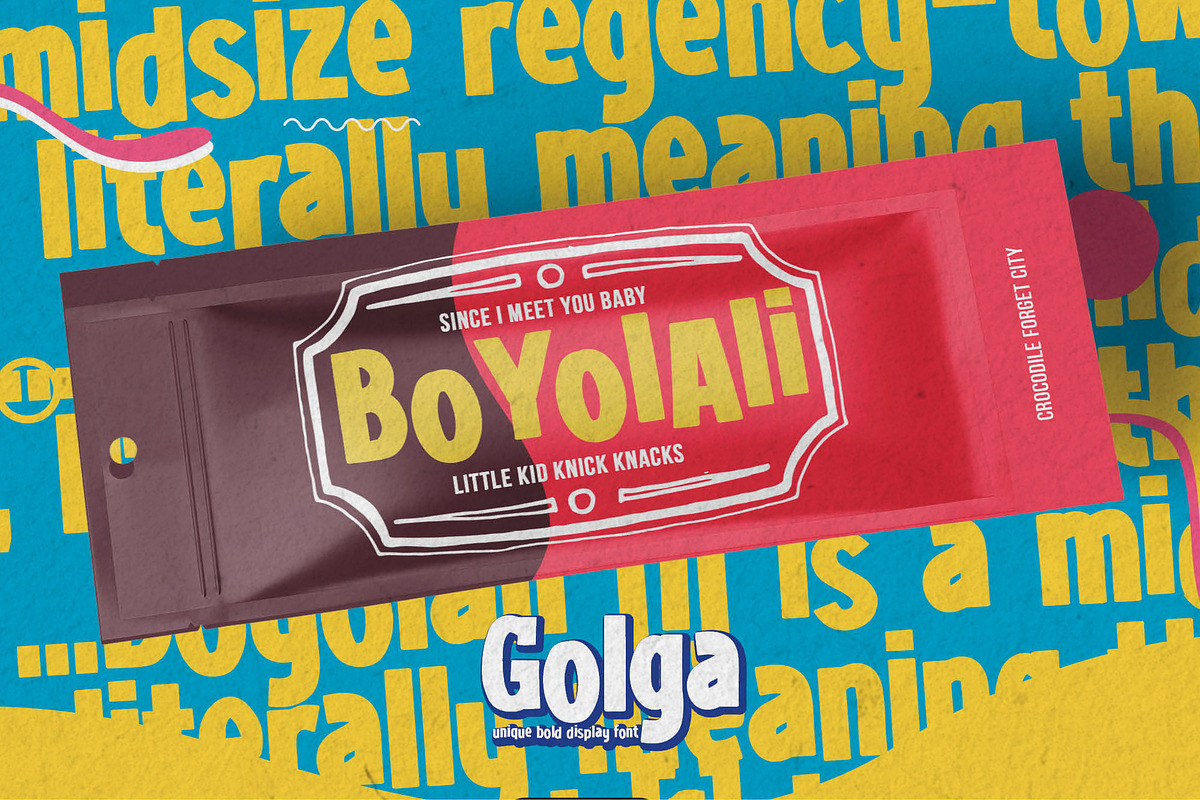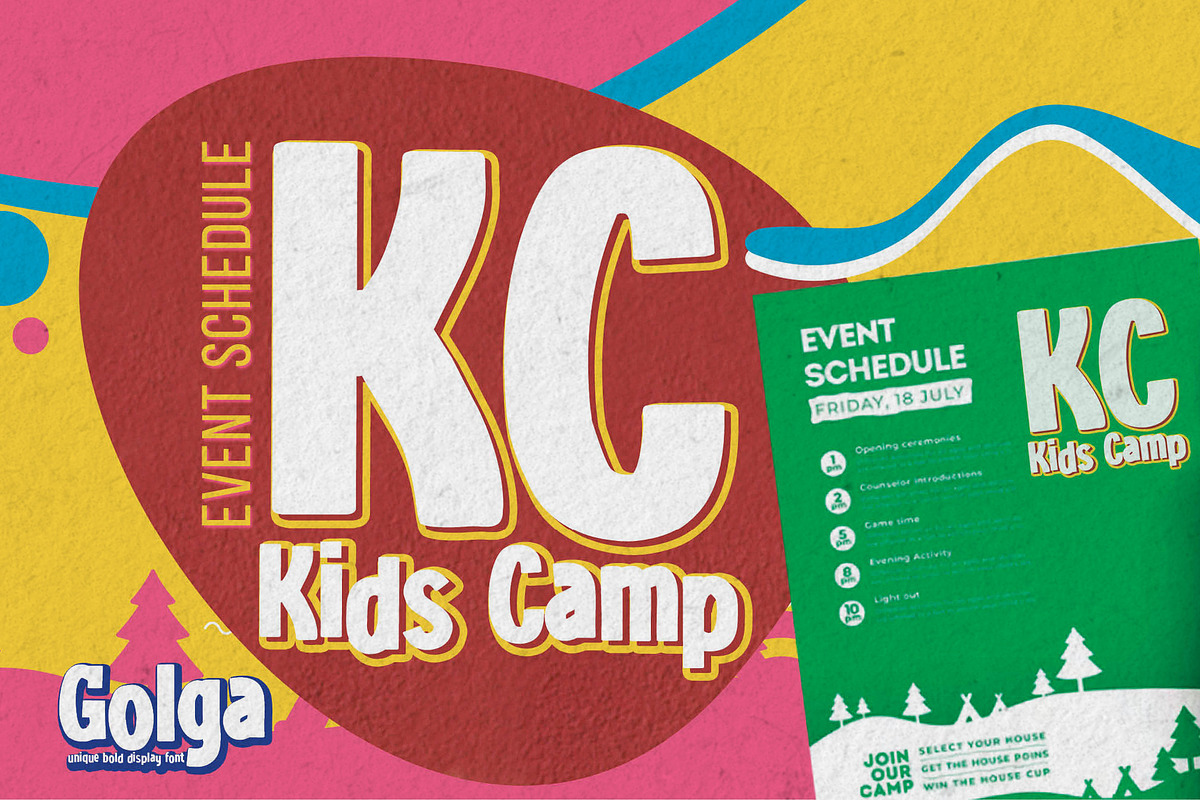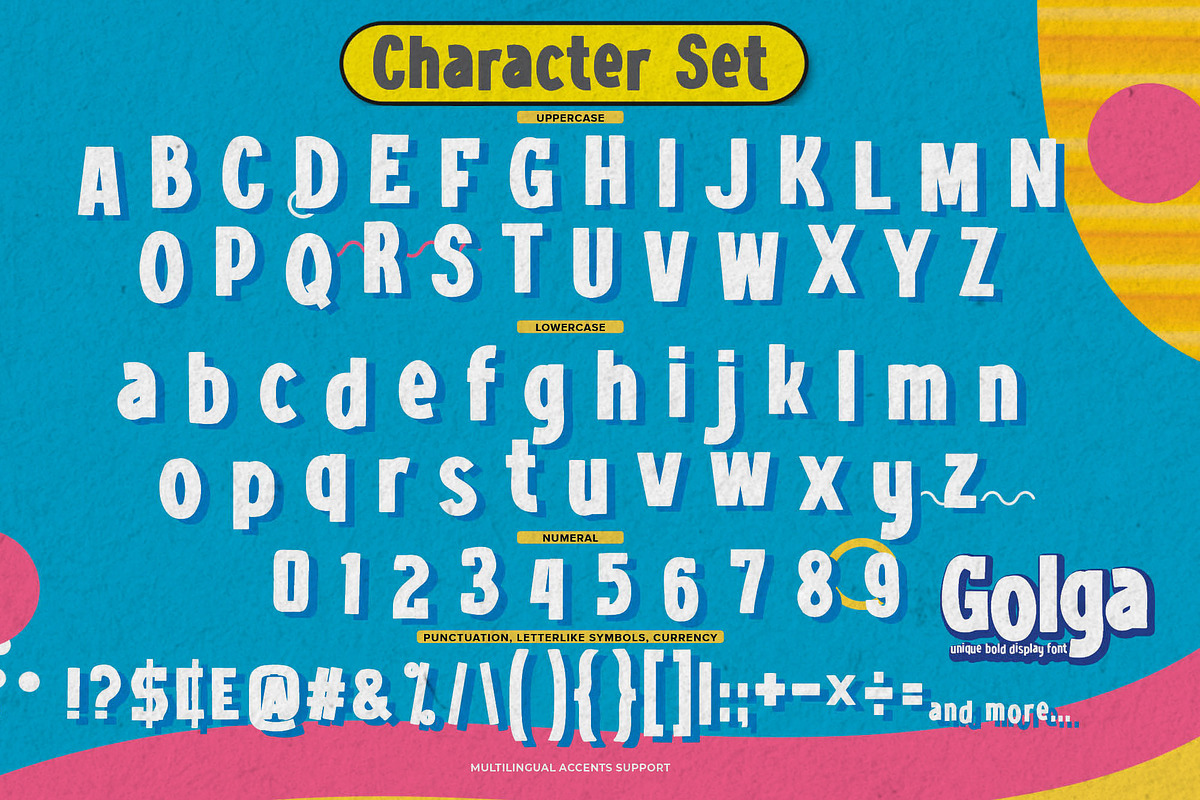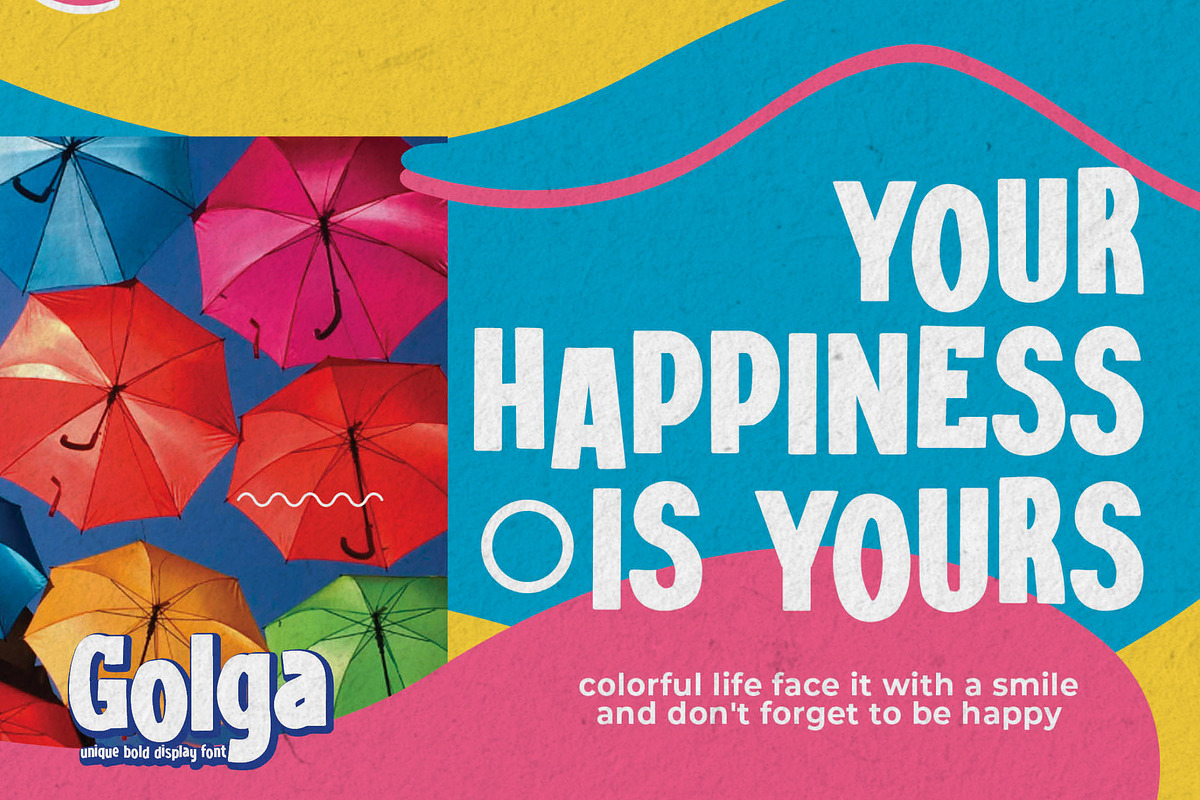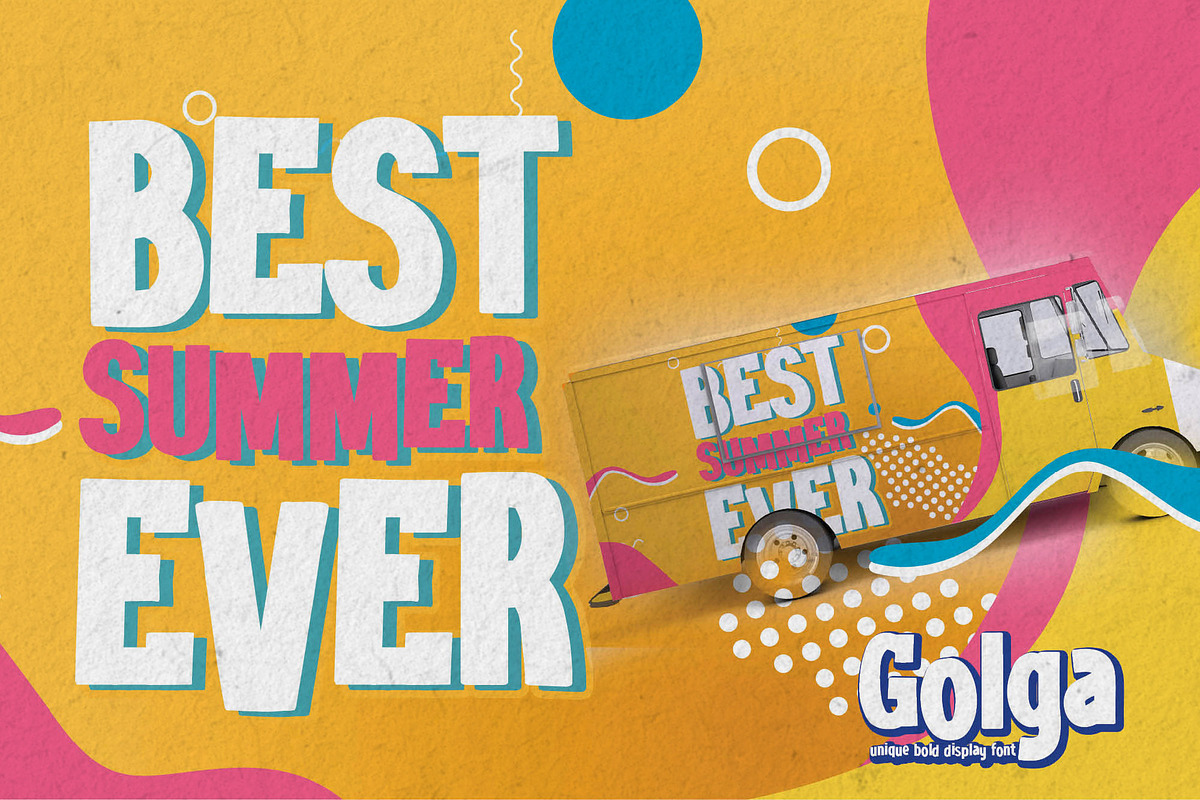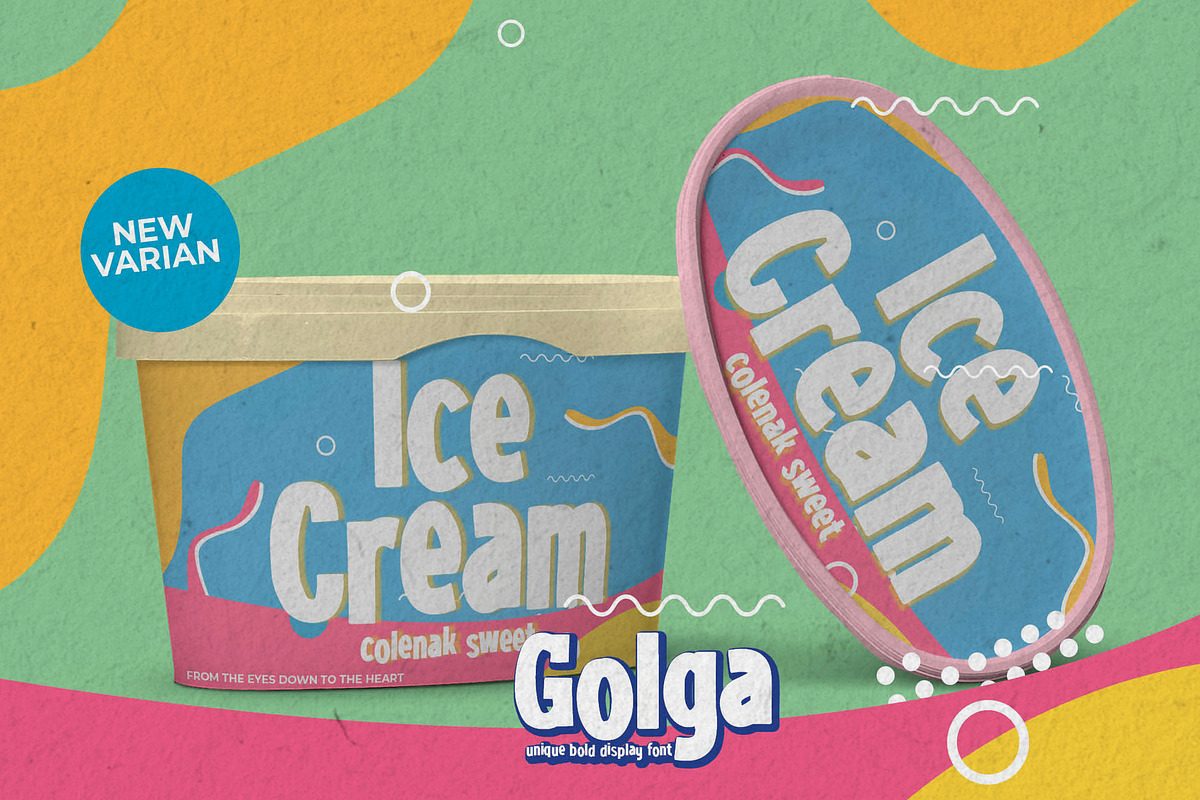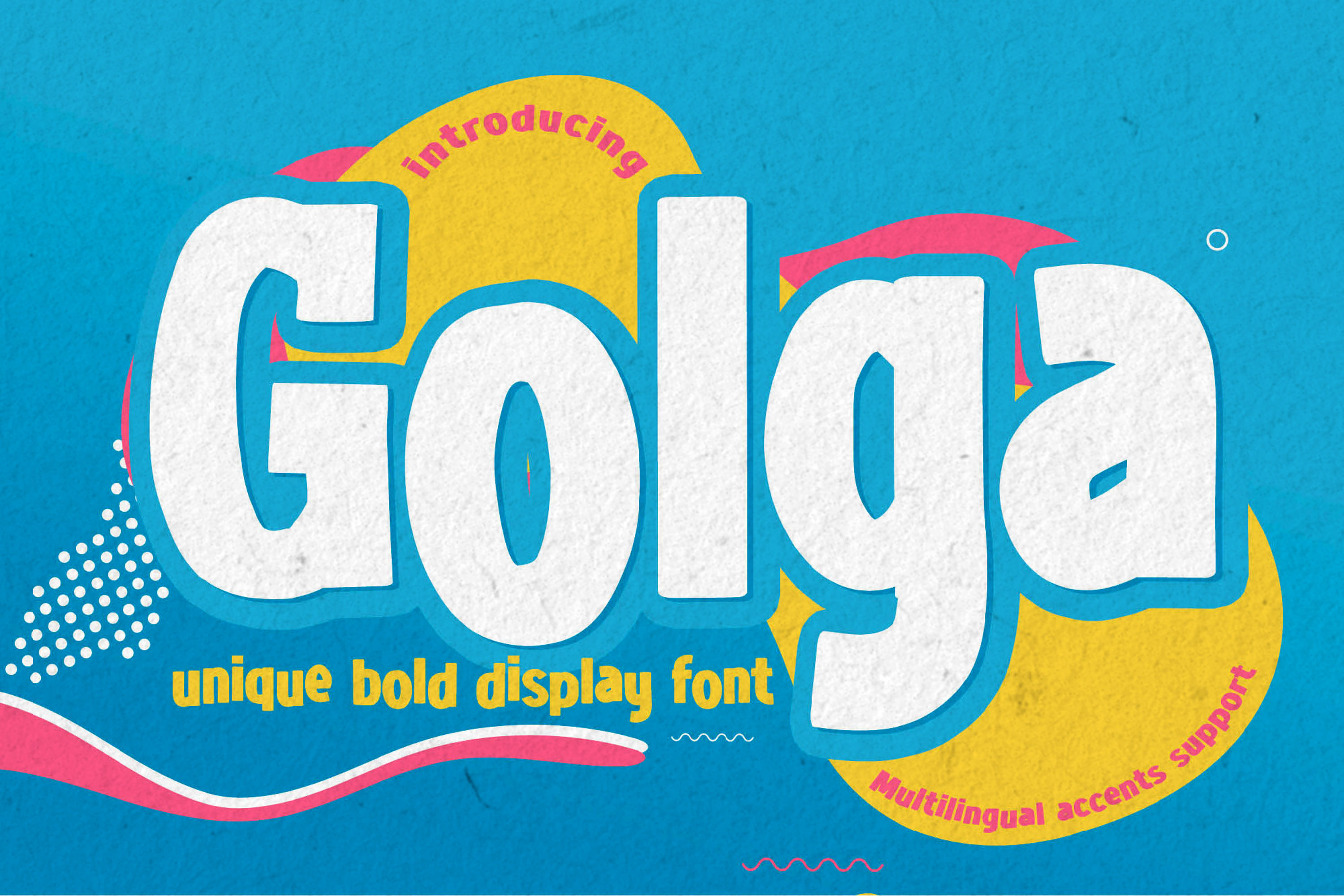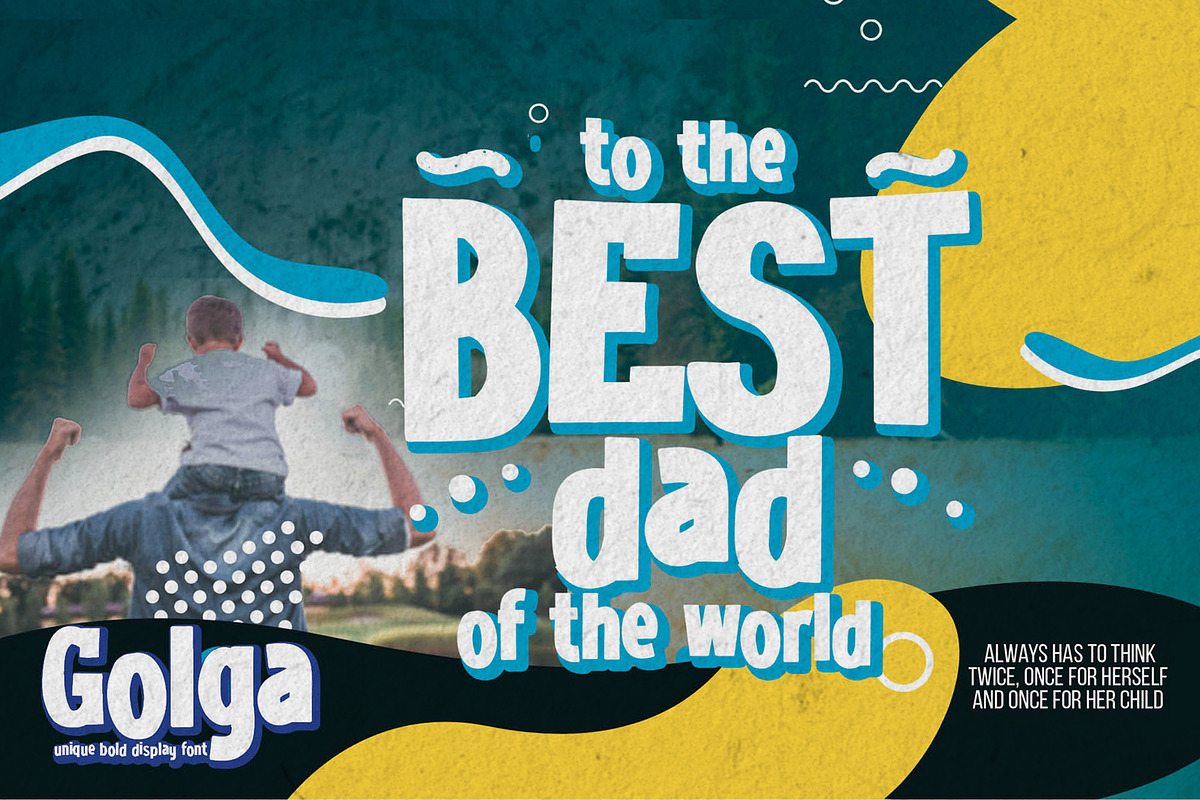
Golga - Unique Bold Display Font
Here comes a New font, Golga is Unique Bold Display Font this is strong Font, that is written casually and quickly amazing. Then crafted carefully drawn into vector format.
This font is great for your next creative project such as logos, printed quotes, invitations, cards, product packaging, headers, Logotype, Letterhead, Poster, Label, and etc.It is perfect for any design project as Invitation,logo, book cover, craft or any design purposes.this font is great for your creative projects such as watermark on photography, and perfect for logos & branding, invitation,advertisements,product designs, stationery, wedding designs,label ,product packaging, special events or anything that need handwritting taste. That is Font Golga has Stylish,Cool and Unique characteristic more natural look to your text with a more modern look to your text.